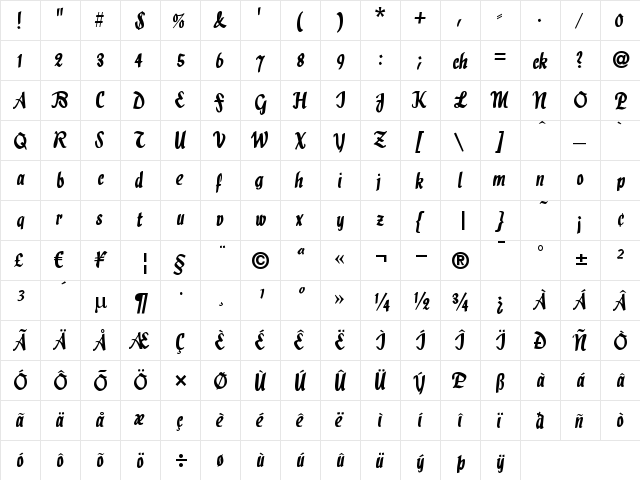
Holla Regular
| Designer | Prof. Rudolf Koch |
Design Context for Holla Typeface
Holla is a composed and adaptable typeface that performs quietly and consistently across a wide range of design contexts.